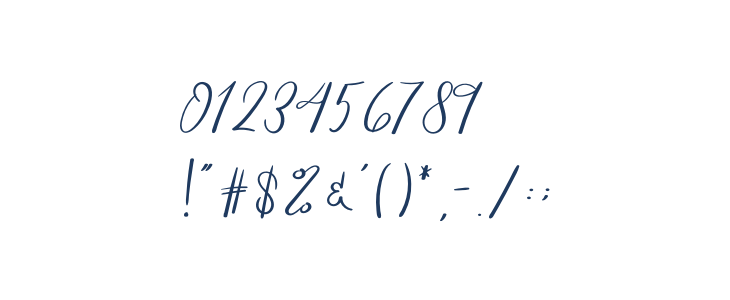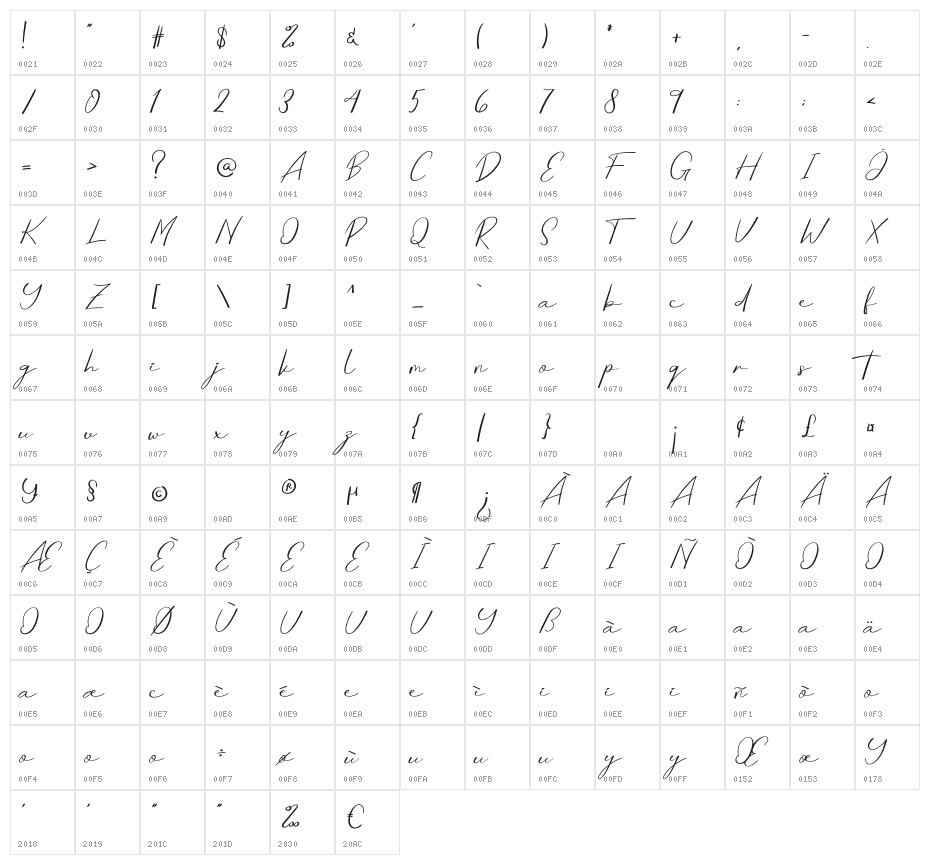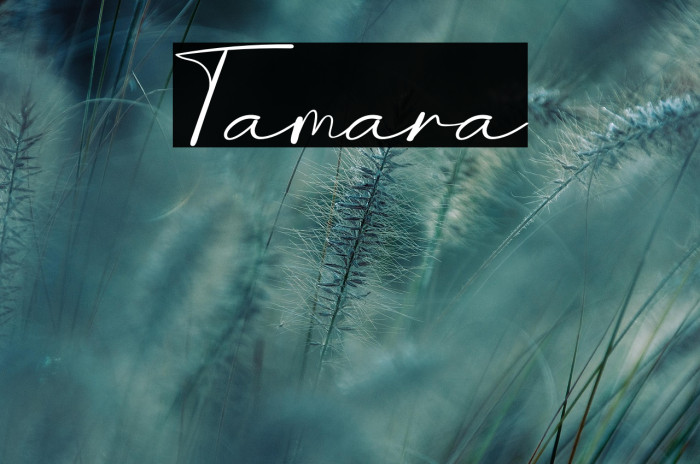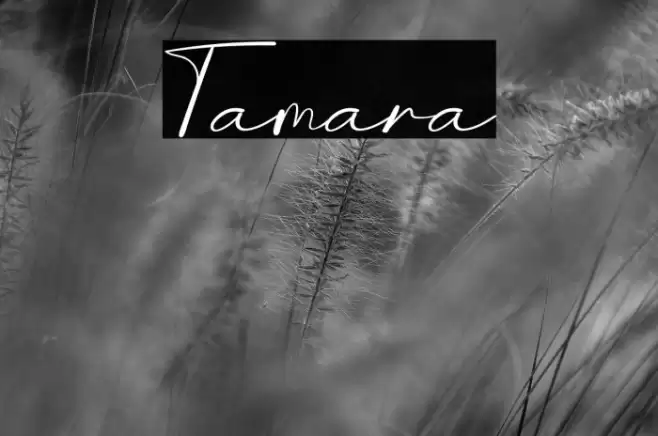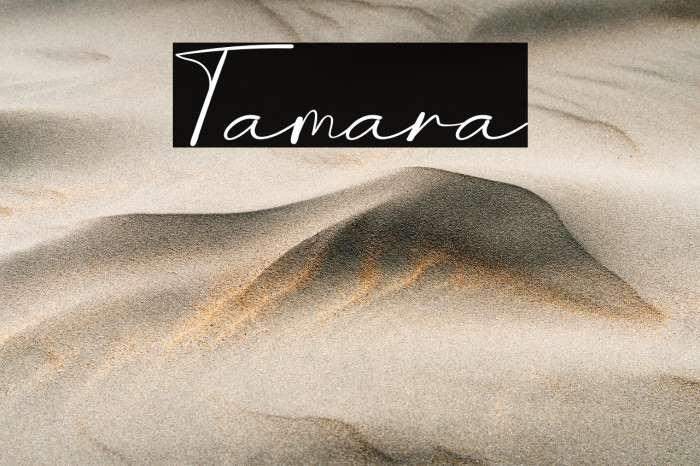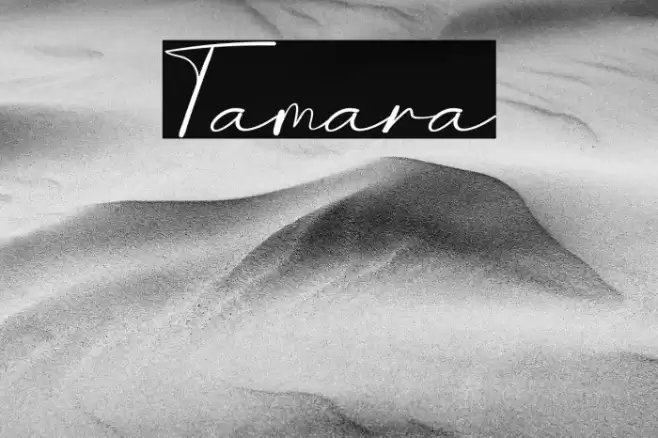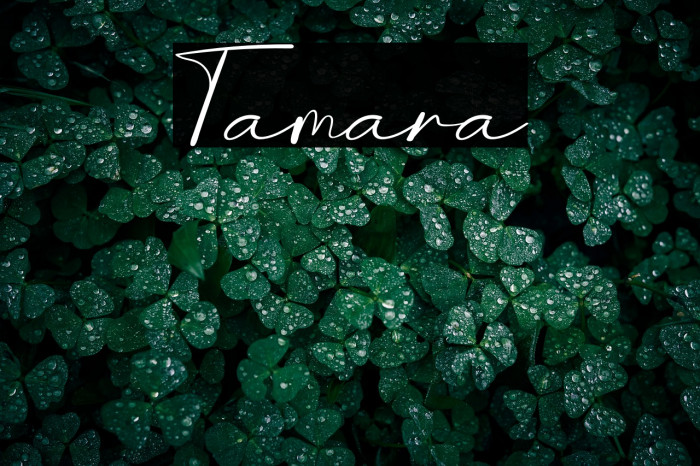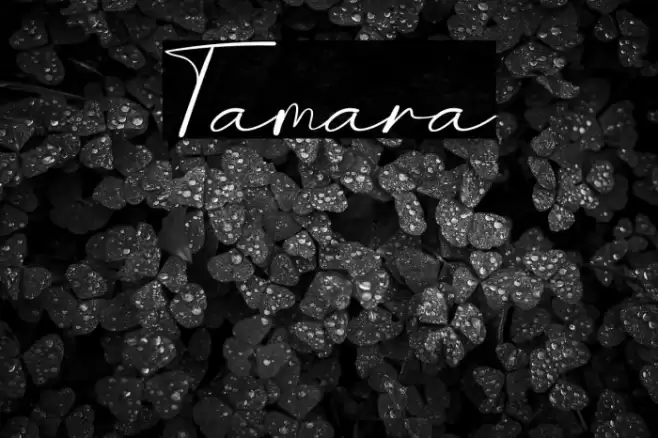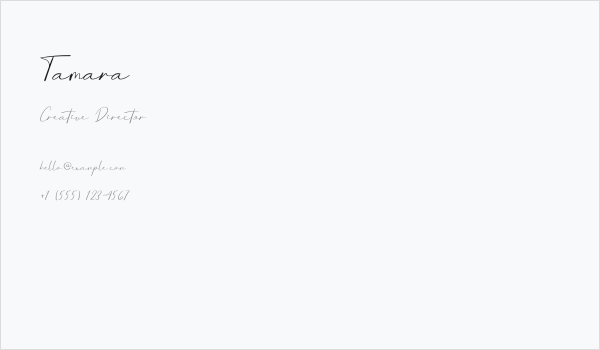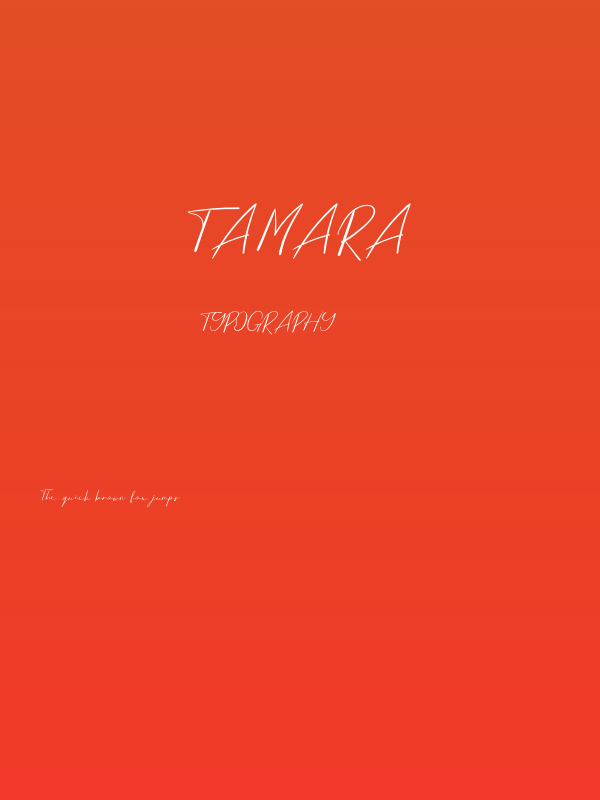
Tamara Font
Tamara Description
This font exudes a sense of elegance and fluidity, characterized by its cursive, handwritten style. The letters are connected in a smooth, flowing manner, giving it a personal and artistic touch. The uppercase letters are slightly more structured, while the lowercase letters exhibit a more freeform, natural handwriting style. The numbers and special characters maintain the same fluidity, ensuring consistency throughout. This font is ideal for projects that require a personal, intimate feel, such as invitations, greeting cards, or personal branding. Its unique style makes it stand out, adding a touch of sophistication and creativity to any design.
| Overall Style | Elegant, Artistic |
| Use Case | Headlines, Artistic projects, Personal branding |
| Proposed Projects | Ideal for invitations, greeting cards, personal branding, and artistic projects. |